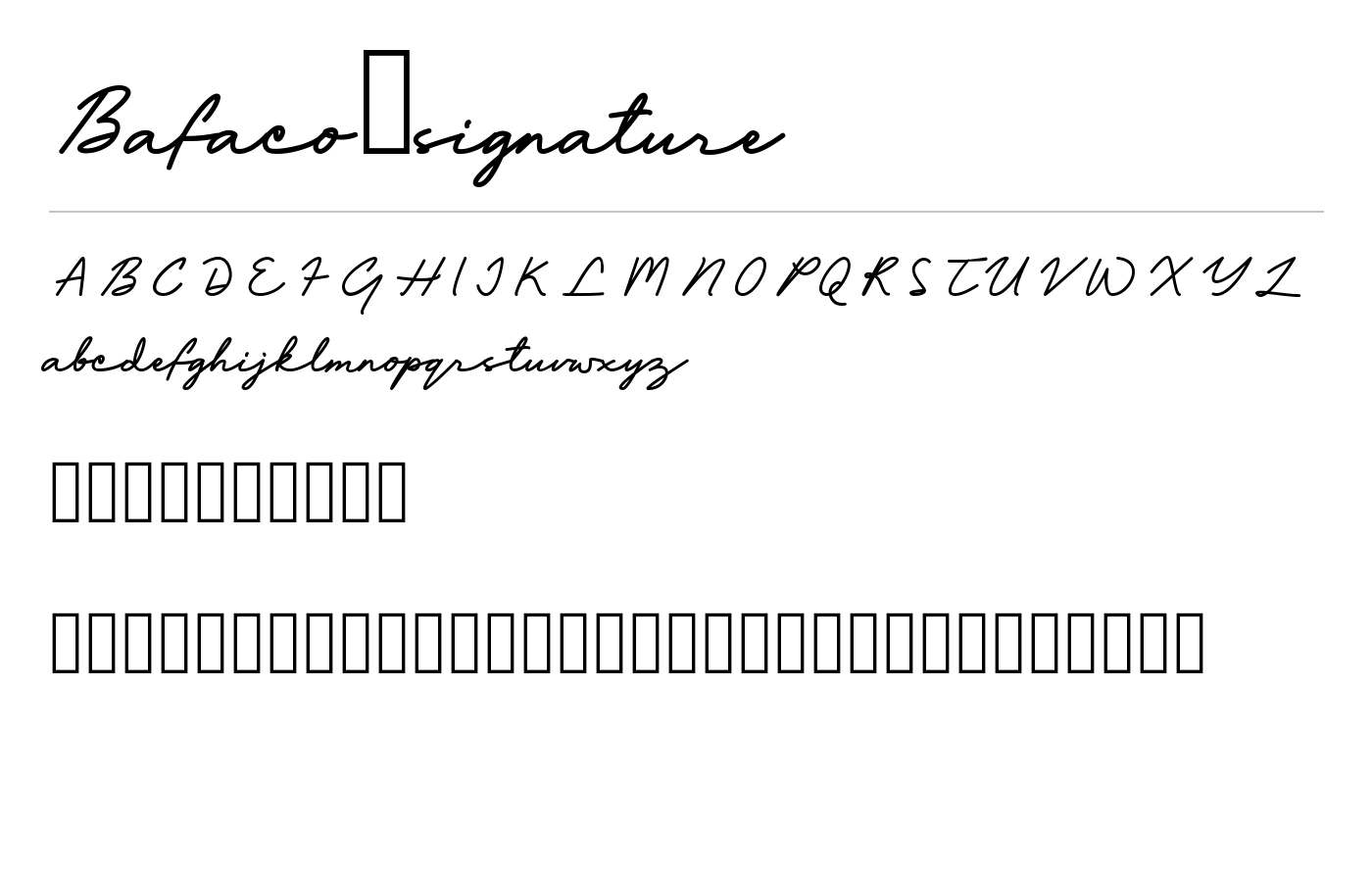
Bafaco Signature is a delicate and elegant script font that mimics natural handwriting with a smooth, flowing style. Its thin strokes and slight slant give it a personal, refined feel, making it ideal for branding, invitations, and creative projects seeking a sophisticated yet approachable touch. This font works beautifully in contexts where a handwritten, stylish impression is desired.
Bafaco_signature Font
About Bafaco_signature Font